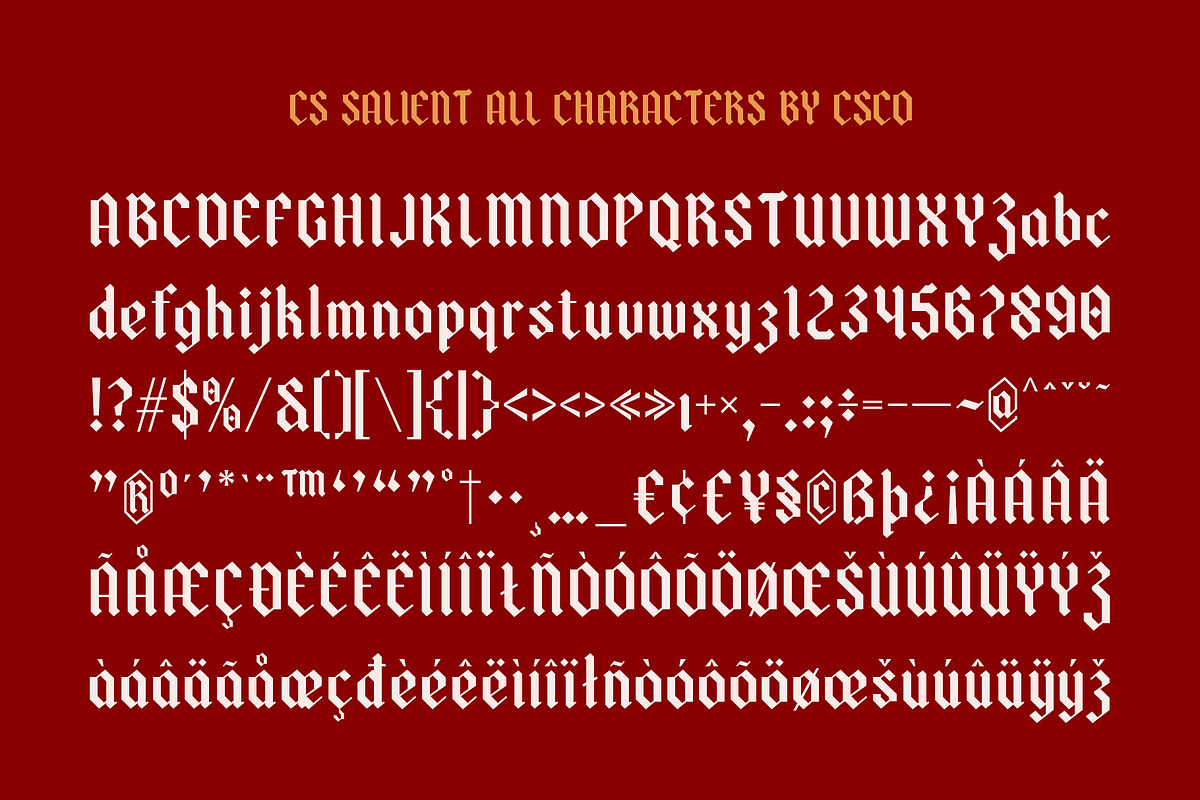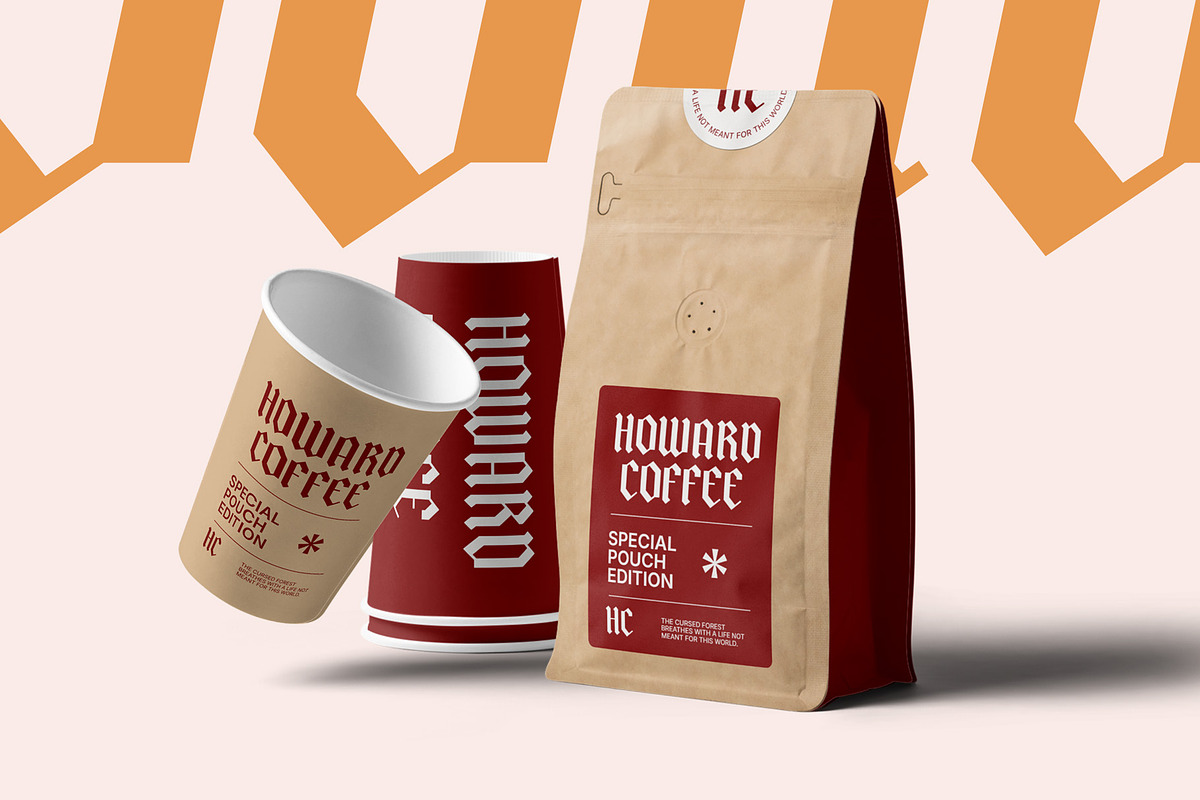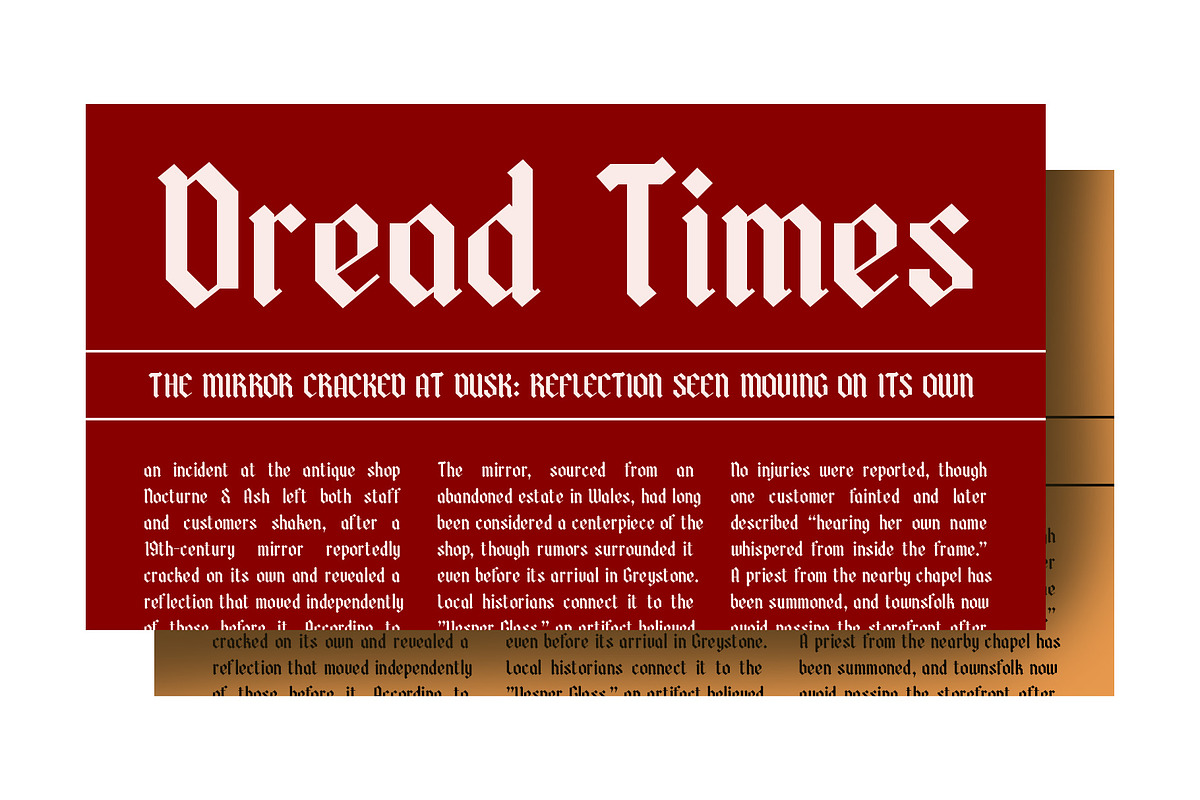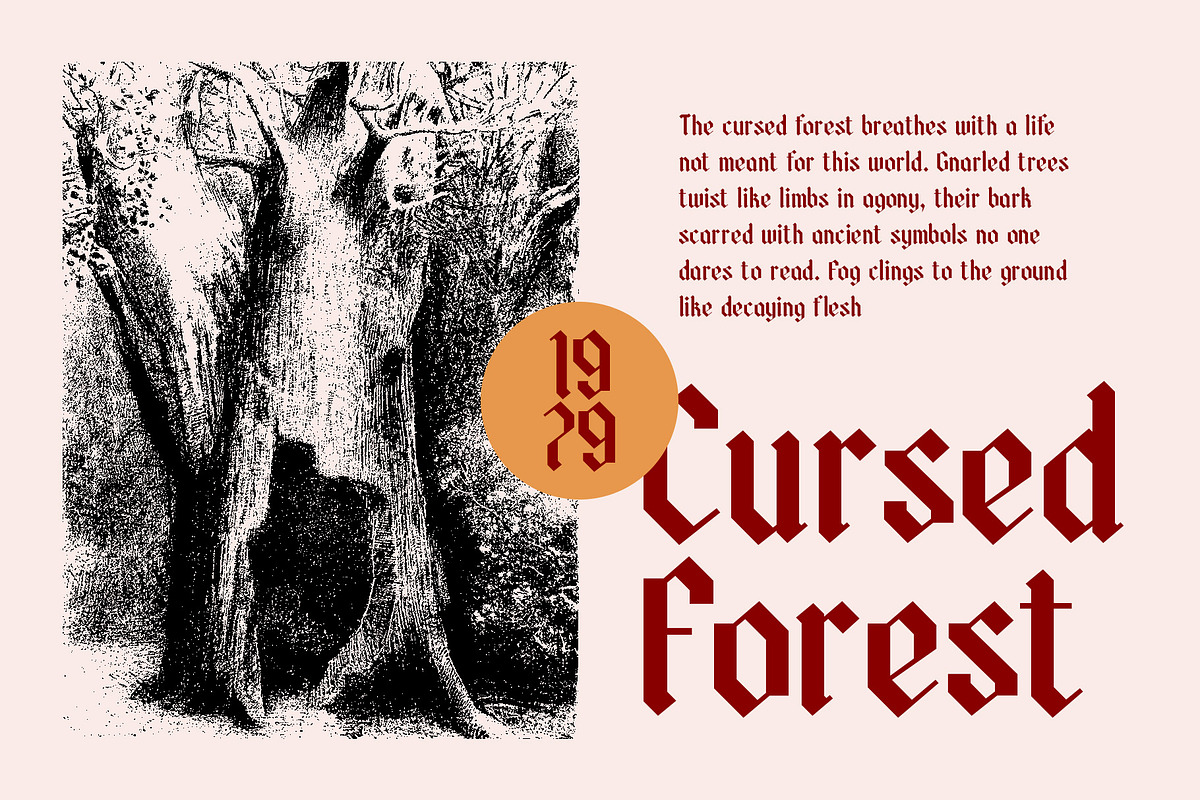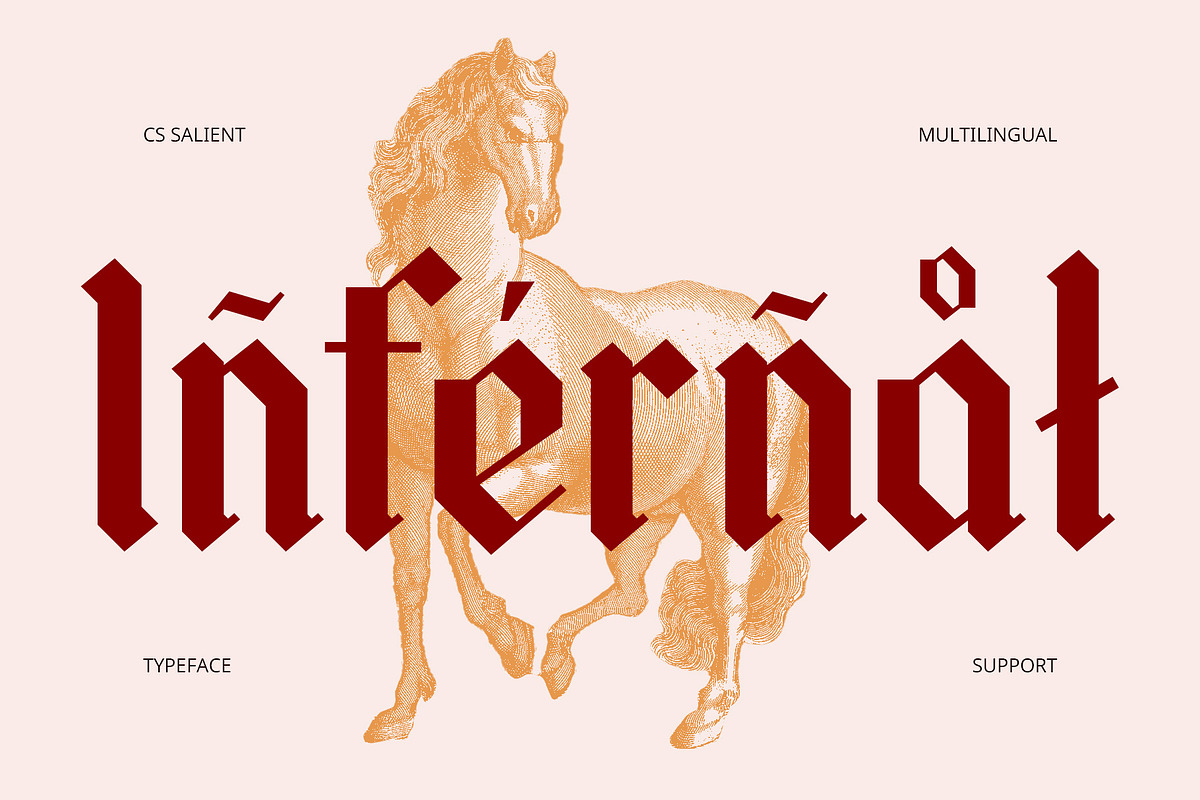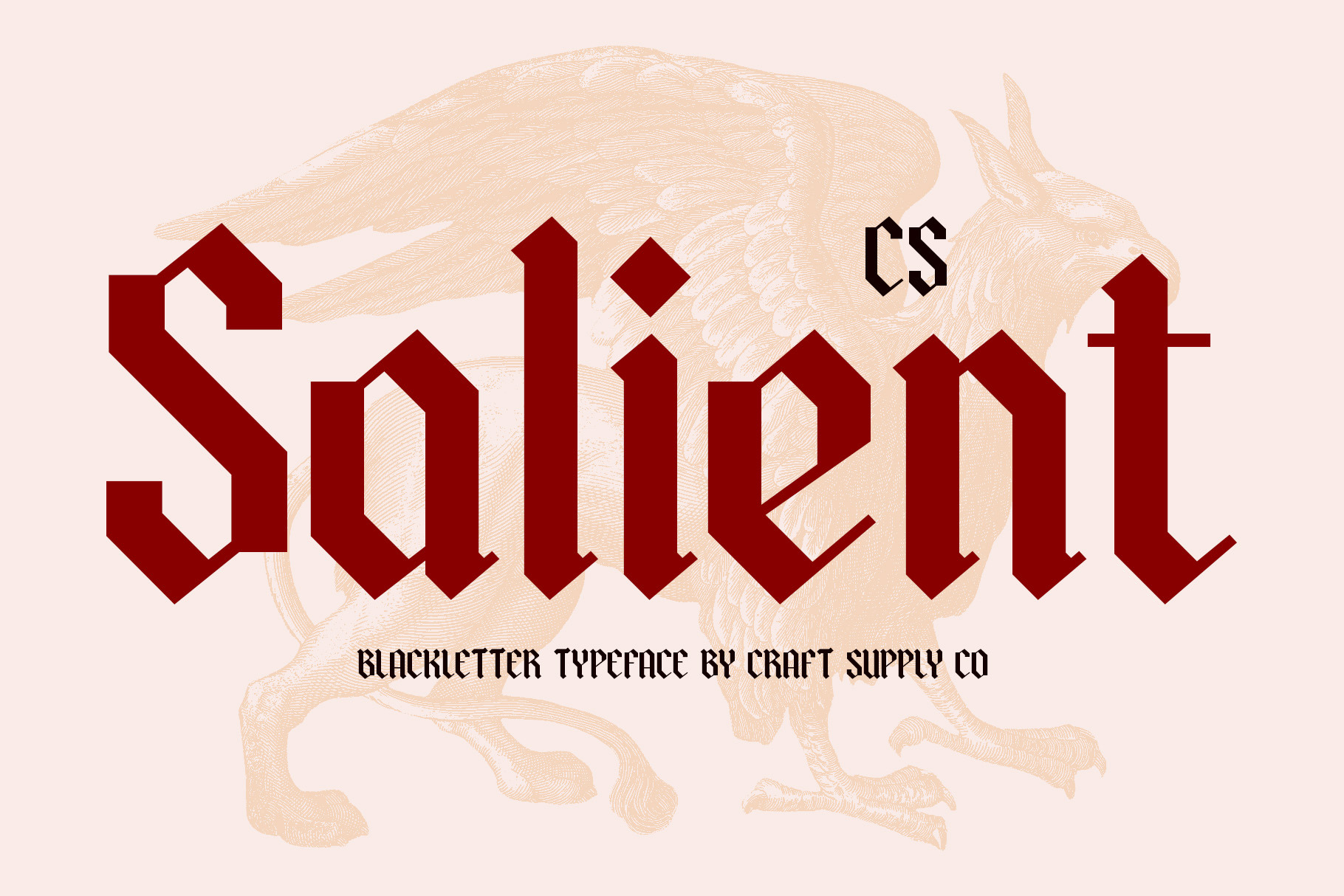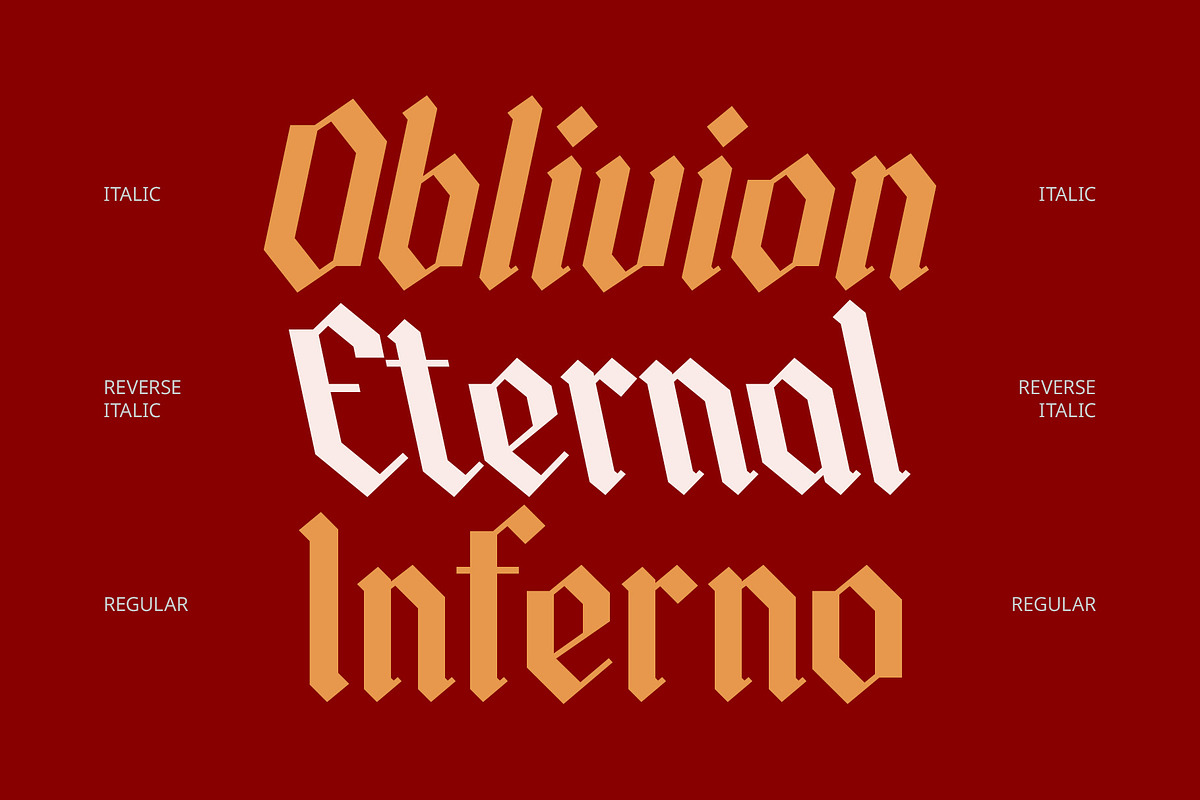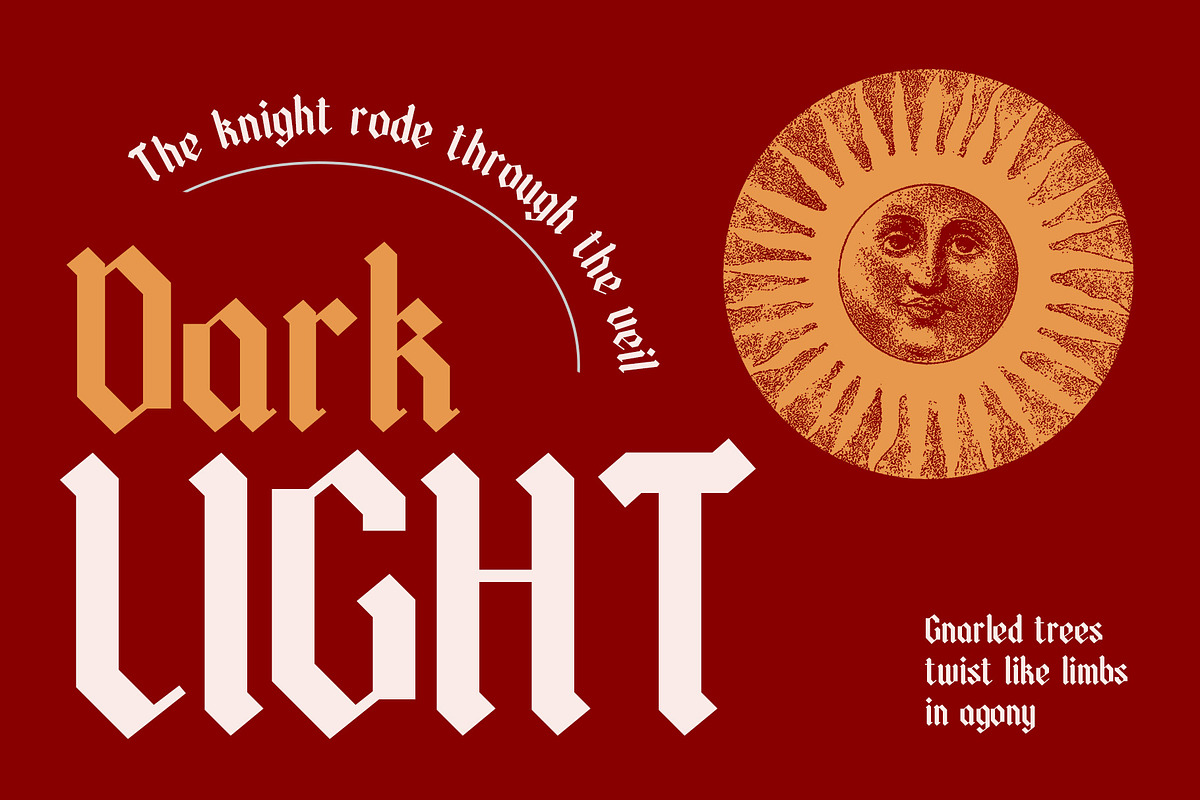
CS Salient – Blackletter Font
CS Salient – Blackletter Font: A Fresh Take on Gothic Elegance
Bold and Distinctive Blackletter Form CS Salient is a blackletter display font that merges traditional blackletter elements with a contemporary design, creating a unique fusion of history and modernity. Its bold lines and distinctive letterforms exude strength and power, making it ideal for projects that demand attention and a strong visual presence.
Historical Impact with a Modern Twist While rooted in the classic Gothic style, CS Salient offers a cleaner, more refined aesthetic that brings blackletter typography into the present. This balance between old-world charm and modern design gives it a versatile edge for contemporary design projects.
Perfect for Strong, Dramatic Impressions Whether you’re crafting a powerful logo, eye-catching headline, or impactful poster, CS Salient delivers a striking and dynamic look. It’s ideal for projects aiming to capture attention with its bold presence and dramatic flair, perfect for showcasing a fresh and energetic gothic vibe.
Versatile for Branding and Impactful Visuals CS Salient is well-suited for a variety of design applications, from fashion branding to music graphics, and editorial layouts. Its dramatic form makes it an excellent choice for anything from high-impact event posters to bold editorial spreads that require a distinctive, yet modern, gothic touch.
- CS Salient Regular
- CS Salient Italic
- CS Salient Reverse Italic